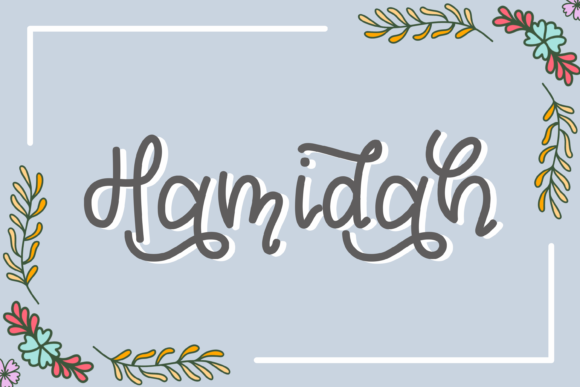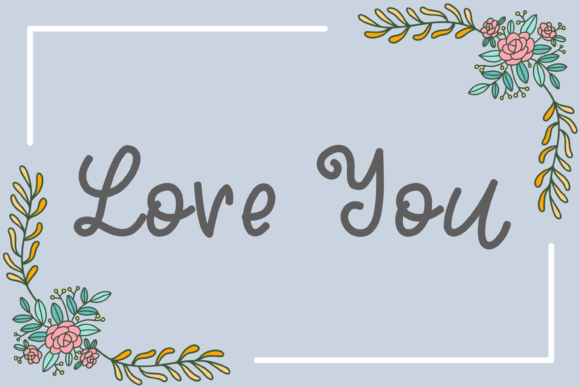
About Hamidah Font
Introducing Hamidah, a flowing handwritten font that exudes elegance and charm. With its elegant touch, this font is perfect for a wide range of design projects. Embrace Hamidah and fall in love with its incredibly distinct and timeless style, allowing you to create spectacular designs that leave a lasting impact.
Hamidah’s flowing handwritten style creates an air of sophistication and grace. Each letter glides effortlessly, as if penned with the finesse of a skilled calligrapher. Whether you’re working on wedding invitations, love letters, inspiring quotes, or any other creative endeavor, Hamidah adds a touch of timeless beauty that captivates and enchants.
The font’s versatility knows no bounds. As you embrace Hamidah, you’ll discover how seamlessly it complements a wide array of design projects. From branding and logo design to social media graphics, blog headers, and digital artwork, Hamidah’s elegant touch elevates your creations with its exquisite allure.
Imagine using Hamidah to create captivating typography art. Its distinct and flowing style becomes a centerpiece, adding a touch of sophistication and allure to your designs. Let your creativity flow, and watch as your artwork comes alive with beauty and elegance.
For quotes that resonate with authenticity and wisdom, Hamidah brings an aura of timeless charm. Whether shared on social media or showcased on beautifully printed wall art, your messages will captivate with a touch of grace.
Greeting cards and stationery become works of art with Hamidah. Be it weddings, special occasions, or moments of celebration, the font’s flowing and elegant script makes your greetings truly stand out, leaving recipients in awe of your thoughtful designs.
In conclusion, Hamidah is more than just a font; it’s an embodiment of elegance and charm. With its flowing handwritten style and timeless appeal, Hamidah becomes an essential tool for all your design projects. Embrace the beauty and grace of Hamidah and watch as your projects reach new heights of elegance and allure. Let your creativity soar in the elegant embrace of Hamidah, the handwritten font that defines beauty and sophistication.